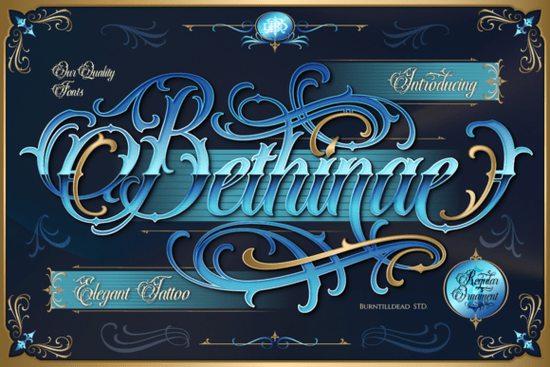
The Bethinae Font is a script typeface that blends blackletter influence with tattoo-style detailing. If you're working on branding for barbershops, tattoo studios, luxury garages, or streetwear labels, this font delivers a dark, refined look that stands out from typical script fonts. It carries the weight of old-world calligraphy but adds ornate flourishes and swirls that give it a modern, edgy personality.
Designed with two styles Regular and Ornaments Bethinae gives you flexibility to keep things clean or add extra decorative flair depending on the project.
What Does the Bethinae Font Look Like?
Bethinae draws from blackletter traditions but doesn't feel old-fashioned. The letterforms have bold, angular strokes with detailed curls and extensions that give each character a hand-drawn, inked quality. Think of it as a cross between a classic tattoo script and the heavy structure of Gothic lettering.
Here's what makes it visually distinct:
- Regular style Clean and readable, with flowing connections between letters. Good for headlines, logos, and display text where you want that dark elegance without too much visual noise.
- Ornaments style Adds decorative swashes, ligatures, and extra flourishes. This version works well for special display pieces, poster titles, or branding marks where you want maximum impact.
Both styles share the same DNA a glamorous, slightly mysterious tone that feels like an exclusive club logo or an elegant gangster tattoo.
Where Should You Use This Font?
Bethinae works best in contexts where you want to communicate craftsmanship, boldness, and edge. It's not a body text font it's built for display use where every letter is meant to be seen and appreciated.
Some practical uses include:
- Barbershop branding Logos, signage, business cards, and appointment cards
- Tattoo studio materials Flash sheets, shop logos, aftercare packaging
- Streetwear and apparel T-shirt graphics, hoodie prints, hang tags, and labels
- Luxury garage or automotive branding Workshop logos, merchandise, social media posts
- Event posters and flyers Especially for nightlife, music events, or underground markets
- Print-on-demand products Mugs, stickers, phone cases, and wall art with a dark aesthetic
If you run a POD store focused on edgy or masculine design themes, Bethinae could become a go-to typeface for your product line.
How Does Bethinae Compare to Other Blackletter Fonts?
The blackletter category has a lot of options, but not all of them strike the same balance between readability and ornamentation. Some are too heavy and hard to read at smaller sizes. Others strip away the decorative details and feel generic.
Bethinae sits in a middle ground detailed enough to feel premium, but structured enough to work in real design projects. If you're exploring blackletter styles, you might also want to look at Harry Poster Regular Font for a more traditional poster aesthetic, or Black Kiyrand Font if you want something with a sharper, more modern edge.
Each of these fonts brings a different mood to blackletter design, so the right choice depends on the specific vibe you're going for.
Tips for Getting the Best Results with Bethinae
To make the most of this typeface, keep a few things in mind:
- Use it at larger sizes. The intricate details in the flourishes and swirls get lost at small point sizes. Stick to headlines, logos, and display text.
- Pair it with simple fonts. A clean sans-serif for body text will let Bethinae's personality shine without overwhelming the design.
- Experiment with the Ornaments style for hero graphics. The extra decorative elements make it perfect for standalone brand marks or featured text on posters.
- Test it on dark backgrounds. Given its dark, luxurious character, Bethinae often looks best in light-colored text on dark surfaces think white or gold on black.